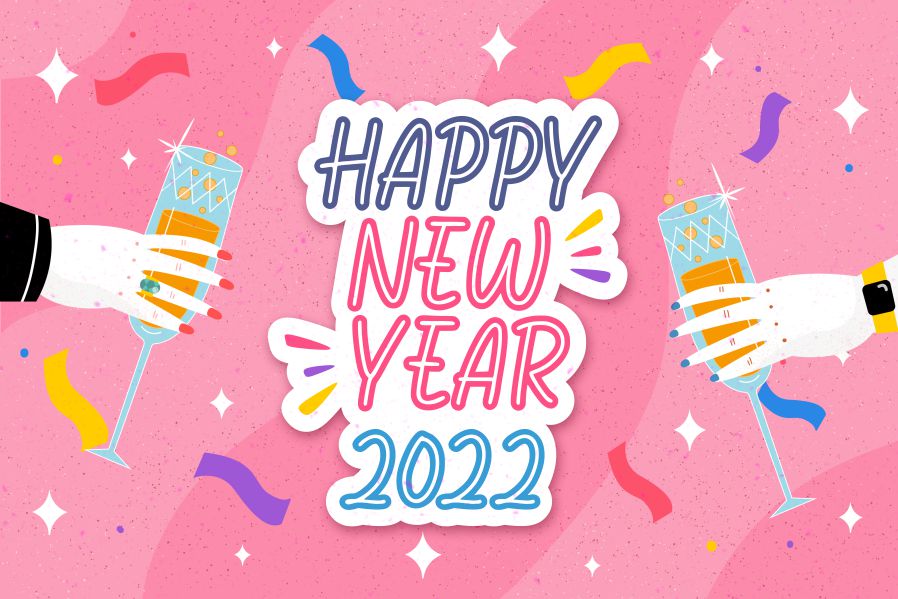
Holykadot Font
Holykadot Display Font
This is a fun display font perfect for product packaging, branding projects, magazines, social media posts, wedding invitations, or just used to express words above the background. Add it to each of your creative projects, and notice how it makes them stand out!